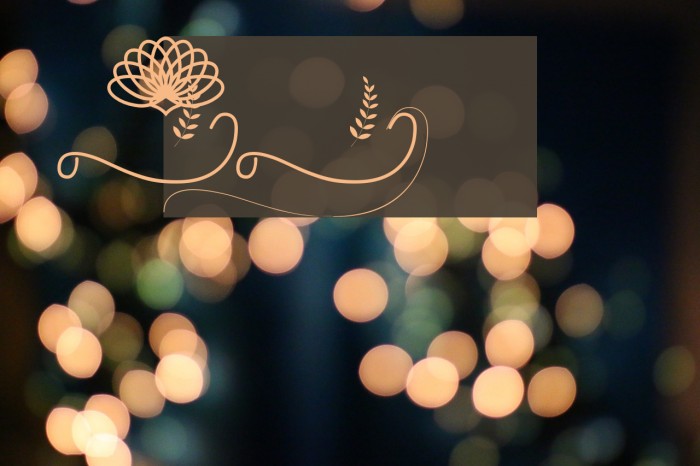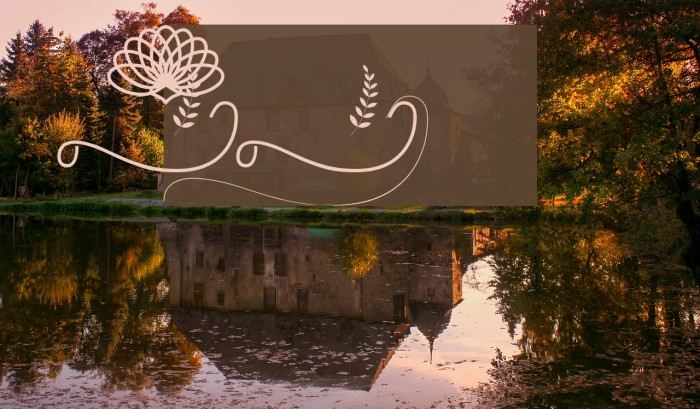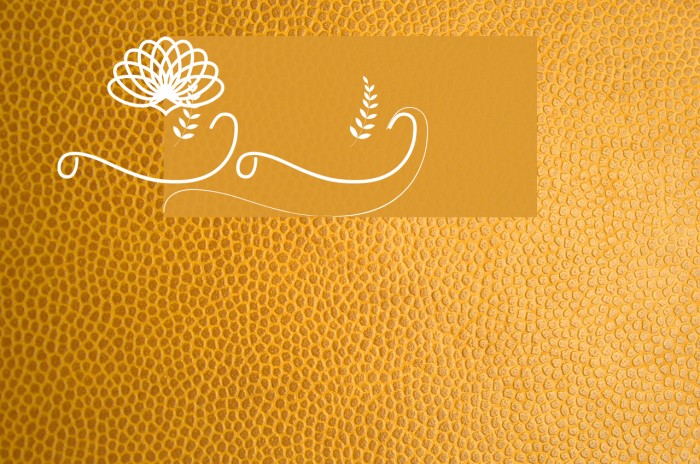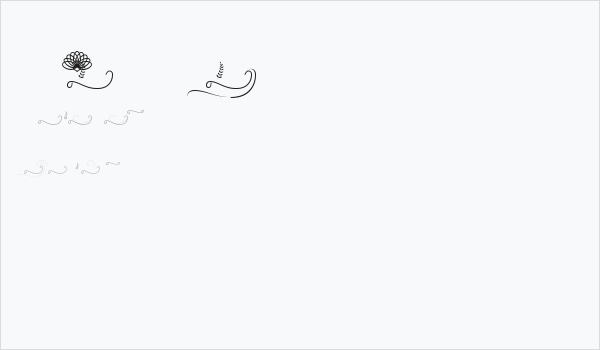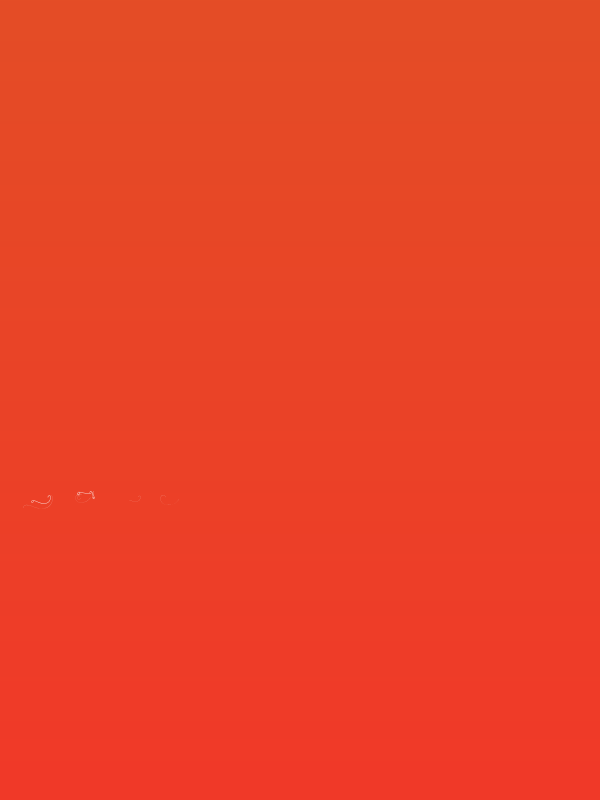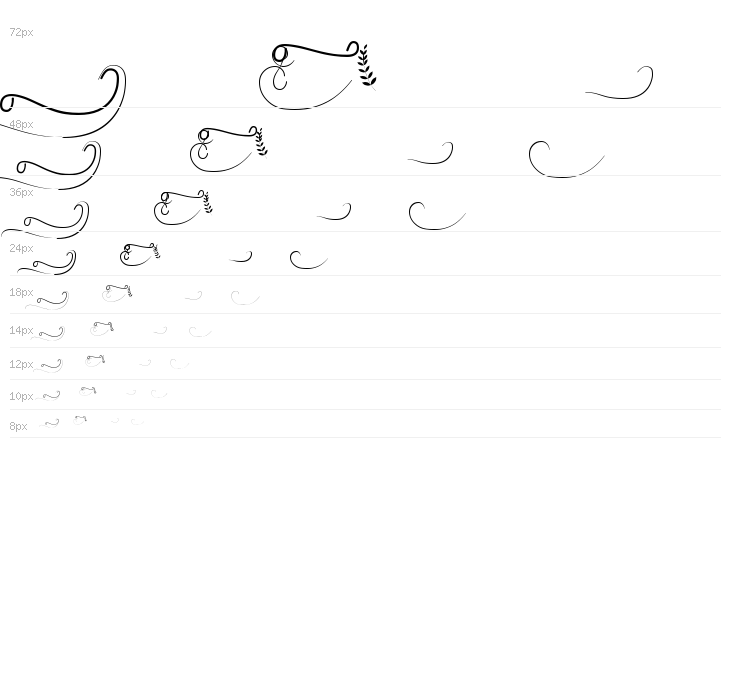
Budapest Swashes Font
Budapest Swashes Description
Ornamental vector swash and flourish elements featuring elegant, looping lines and decorative motifs, suitable for embellishing text or designs.
| Overall Style | Decorative, Elegant, Ornamental |
| Use Case | Accents, Borders, Decorative elements |
| Proposed Projects | Wedding invitations, certificates, greeting cards, luxury branding, decorative borders. |